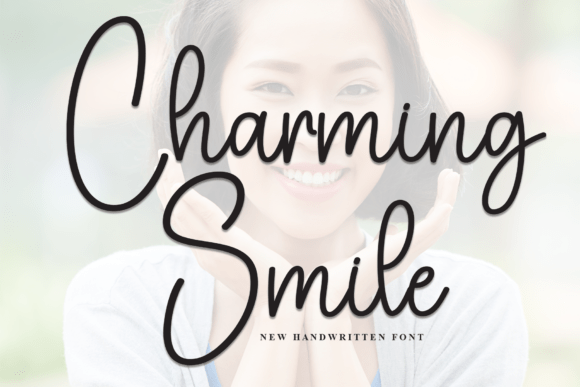
Meet Charming Smile Font, a stylish handwritten script font that brings elegance and modern flair to any project. With its flowing strokes and organic curves, this typeface adds a personal, refined touch with effortless charm. Ideal for branding, invitations, and social media, Charming Smile Font is a valuable asset for designers looking to make a lasting impression.
Key Features of Charming Smile Font
- Font Family: Charming Smile Font is a unique, hand-drawn script font designed to evoke a sense of warmth and elegance.
- Font Size and Resolution: Designed to be used at medium to large font sizes (14-48pt), with a recommended resolution of 300 DPI for optimal clarity.
- Unique Characteristics: Features a flowing, cursive design with subtle imperfections, giving it a hand-written feel that is perfect for creative and artistic projects.
Designer Review: Charming Smile Font
I recently had the chance to work with the Charming Smile Font, and I must say it’s a delightful addition to any design project. ✨ The font’s playful, cursive script makes it perfect for creating a whimsical atmosphere, especially in projects that require a touch of elegance and sophistication. ✨ Its versatility in font sizes and weights allows for seamless integration into various design elements, from headings to body text.
- Charming Smile Font is incredibly legible, making it perfect for long blocks of text.
- The font’s subtle flourishes add a touch of personality to any design project.
- It’s highly customizable, allowing designers to fine-tune the font’s appearance to suit their project’s needs.
- ⚠️ The font may not be suitable for projects that require a more modern or minimalist aesthetic.
- ⚠️ The font’s cursive script can be difficult to read in smaller font sizes.
Overall, I’m thoroughly impressed with the Charming Smile Font. While it may have some limitations, its unique charm and versatility make it a valuable addition to any designer’s toolkit.
For best results, use the Charming Smile Font for headings and titles to create a visually appealing design.
Use the Charming Smile Font for creating elegant and sophisticated text effects in your designs.
Use the Charming Smile Font to add a touch of elegance to your presentations and documents.
Experiment with different font sizes, colors, and styles to create visually appealing designs.
Combine the Charming Smile Font with other elegant fonts to create a sophisticated look.
Use the Charming Smile Font for headings, titles, and short paragraphs to create a clear and readable design.
Branding and marketing materials
Editorial and publishing designs
Alternatives to Charming Smile Font
Playfair Display is a luxurious and elegant font, perfect for high-end designs, luxury brands, and special occasions. It features a mix of classical and modern elements, making it a great choice for designers who want to add sophistication and refinement to their work. Compared to Charming Smile Font, Playfair Display has a more formal and traditional feel, making it suitable for formal invitations, wedding stationery, and luxury packaging.
Great Vibes is a modern and elegant script font, ideal for designs that require a touch of sophistication and elegance. It features a flowing and cursive style, making it perfect for branding, packaging, and editorial designs. Compared to Charming Smile Font, Great Vibes has a more modern and dynamic feel, making it suitable for designs that require a fresh and contemporary look.